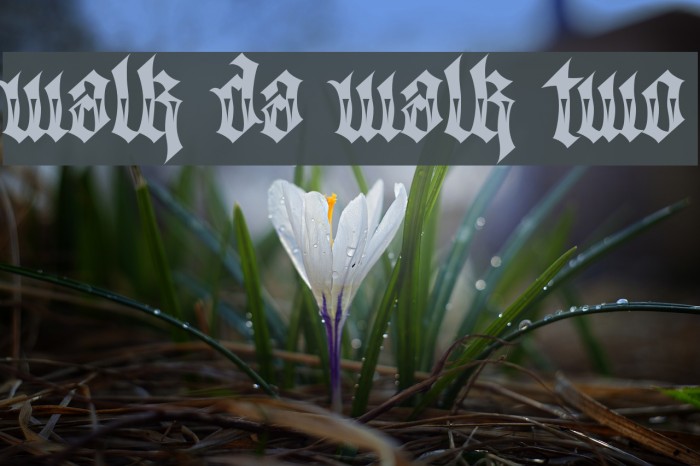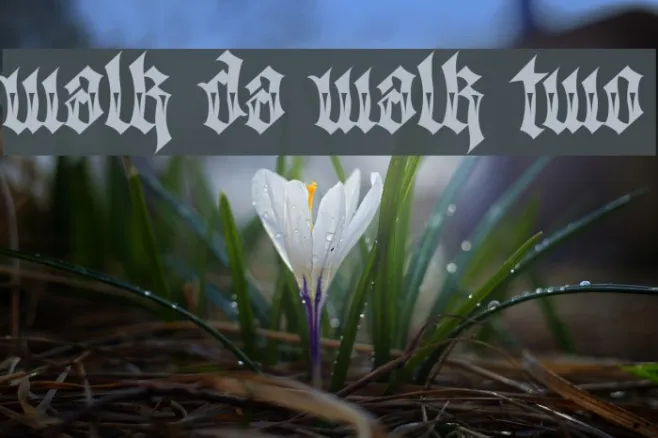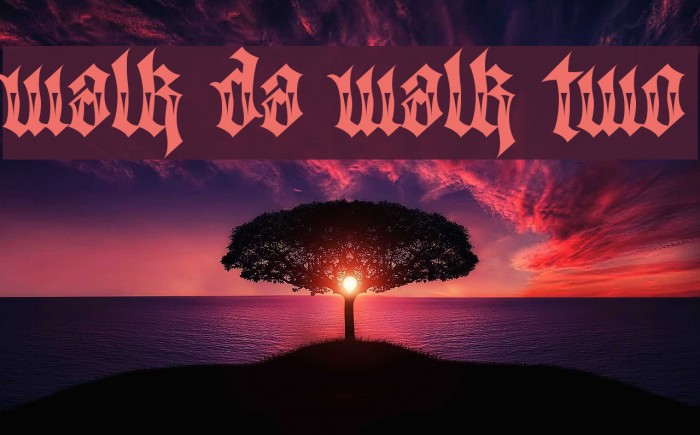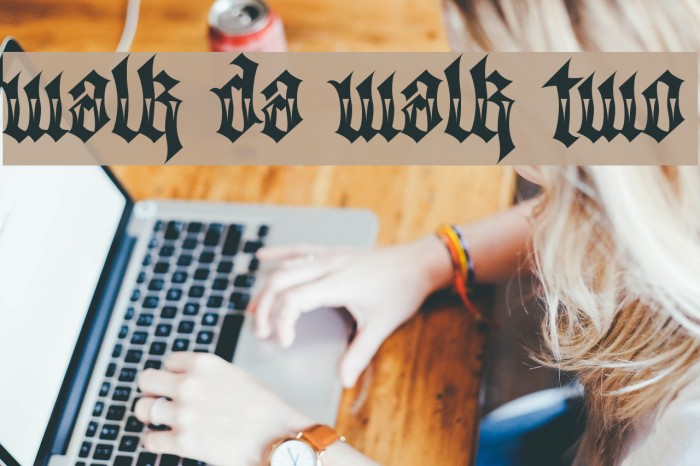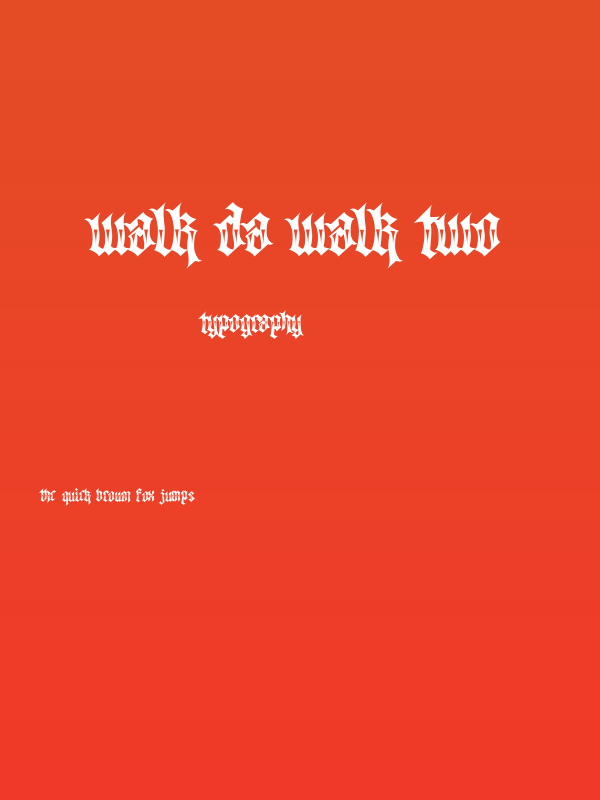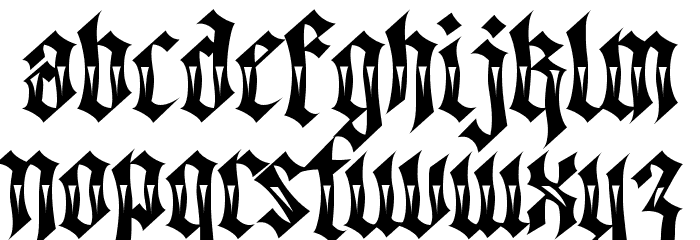
Walk Da Walk Two Font
Walk Da Walk Two Description
This font exhibits a bold and striking blackletter style, characterized by its sharp, angular lines and dramatic strokes. The uppercase and lowercase letters maintain a consistent gothic aesthetic, with intricate details that evoke a sense of historical elegance. The numerals and special characters are equally ornate, complementing the overall design with their unique flair. This font's high contrast between thick and thin strokes enhances its visual impact, making it ideal for creating a strong, memorable impression.
| Proposed Projects | Ideal for projects requiring a historical or gothic touch, such as event posters, book covers, or branding for vintage-themed products. |